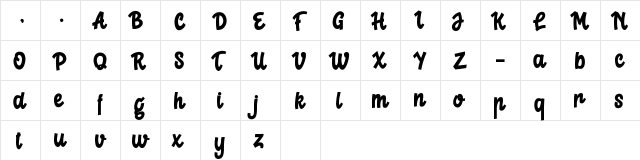
Crelay Regular
Design Context for Crelay Typeface
Crelay is a composed and adaptable typeface that performs quietly and consistently across a wide range of design contexts.